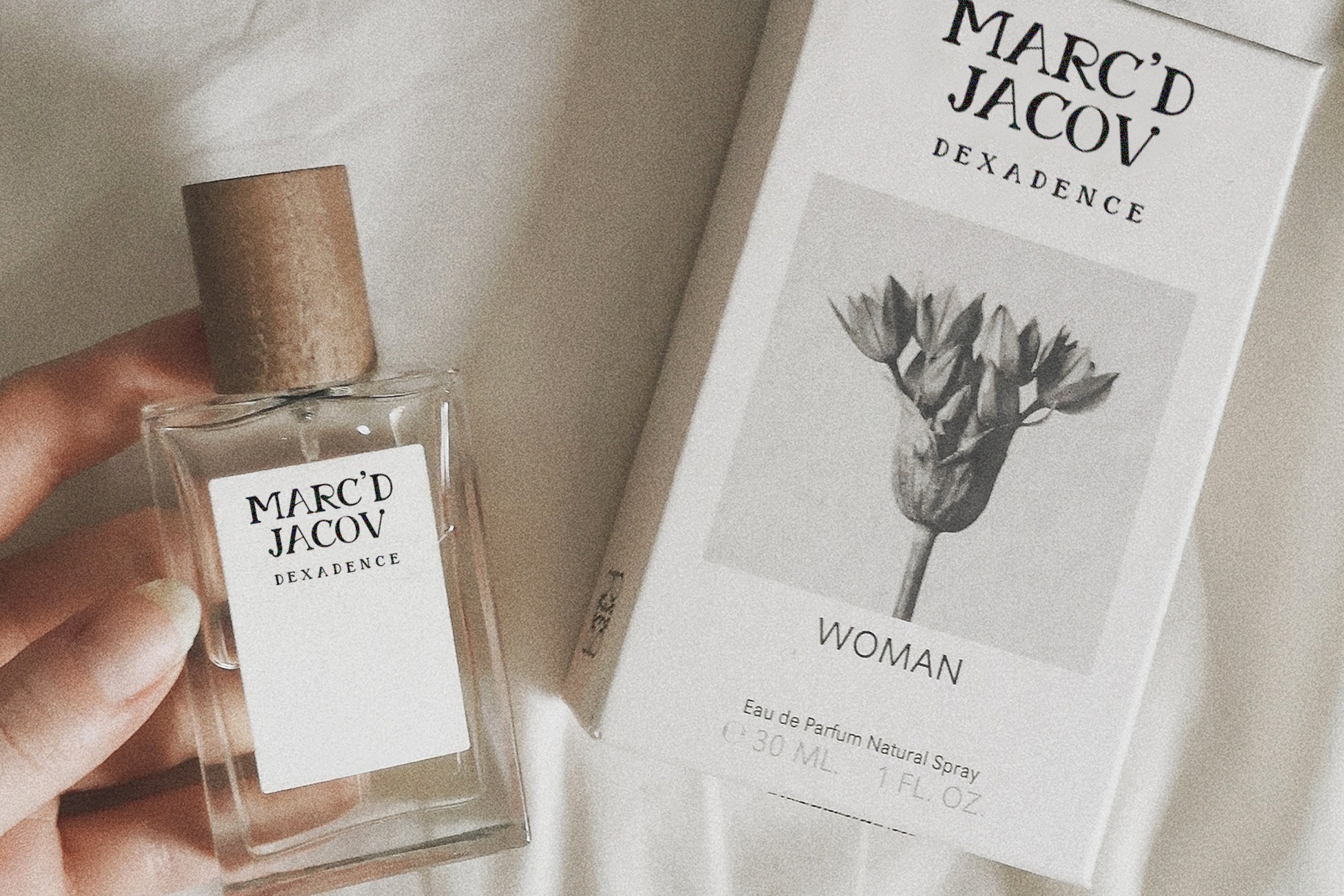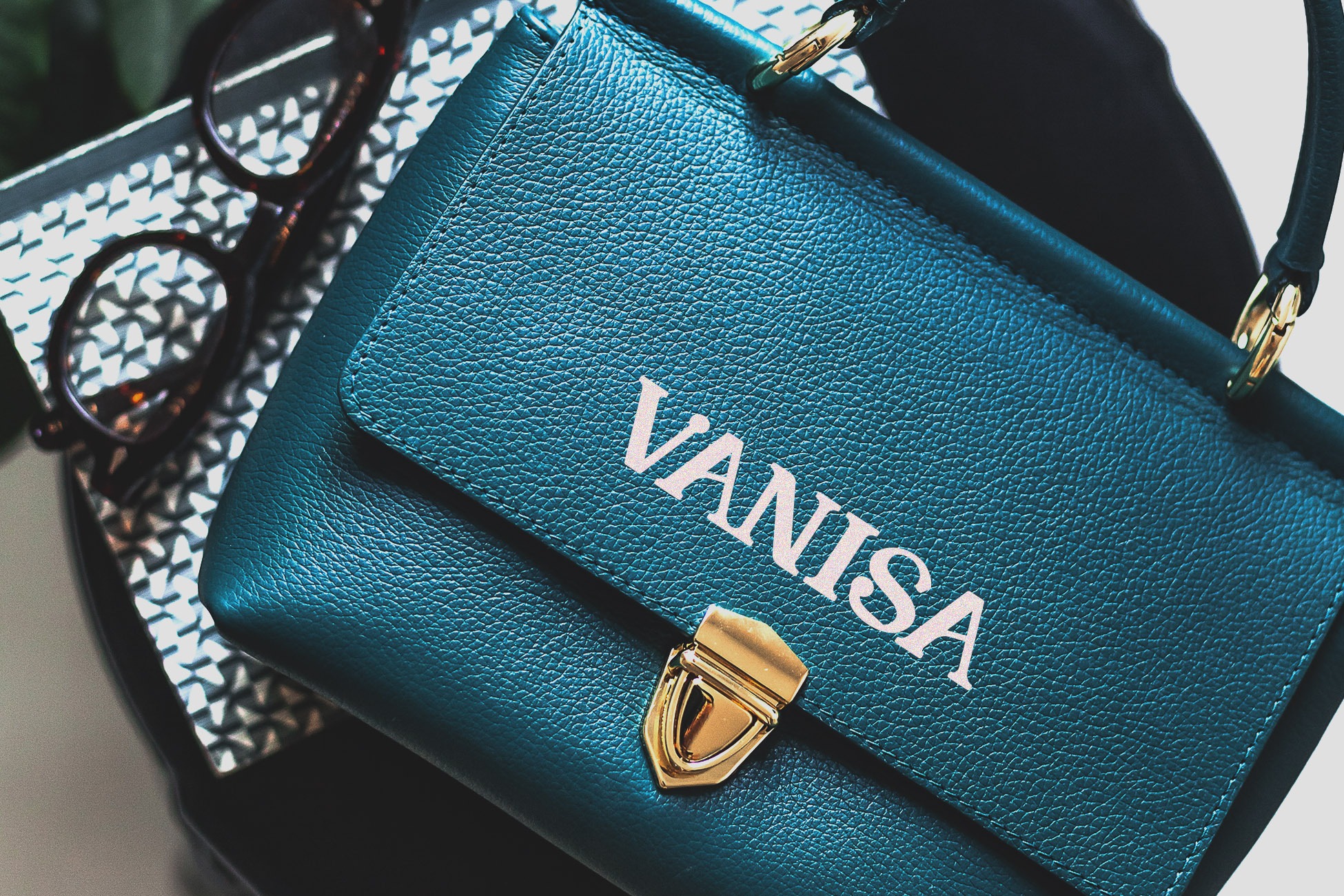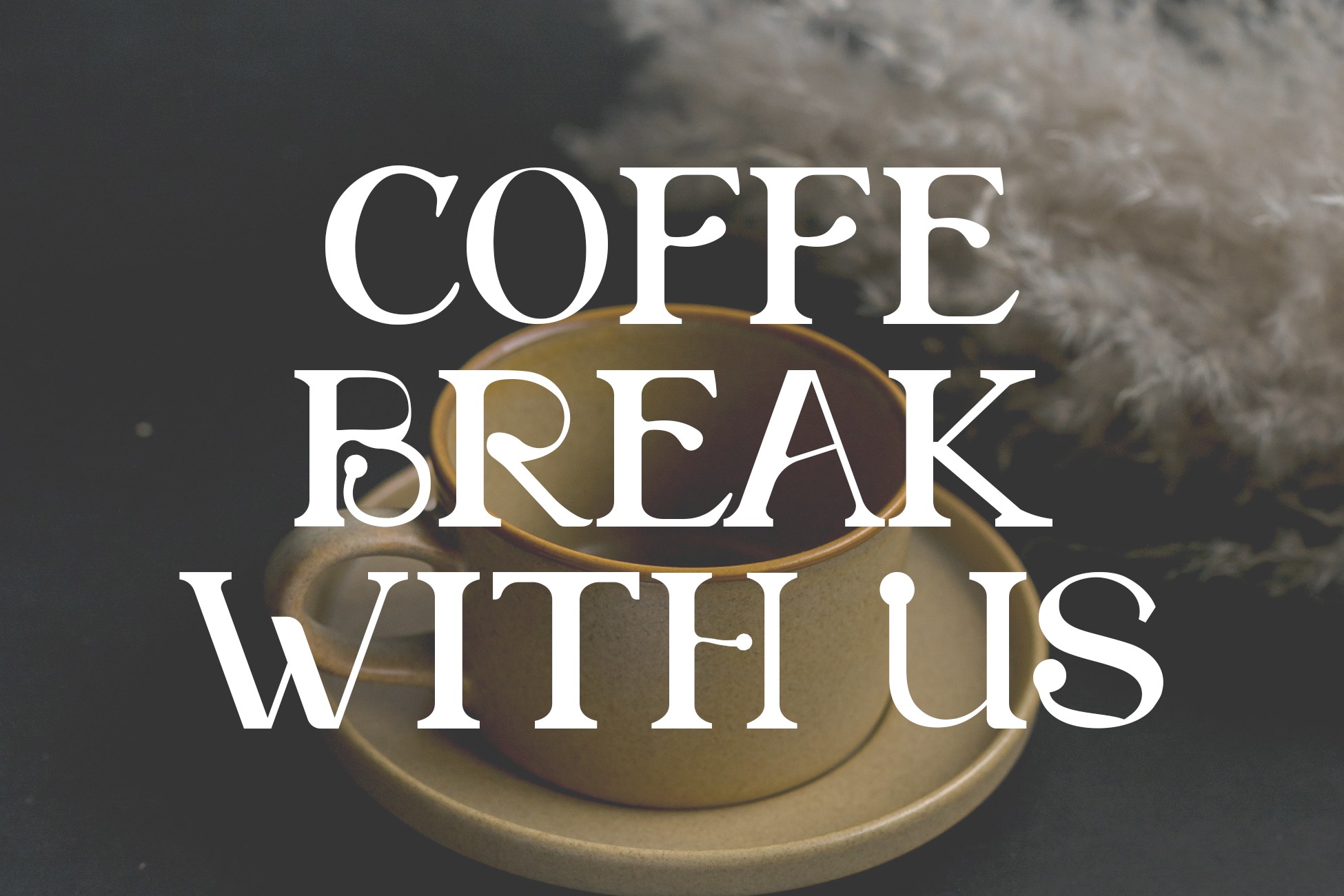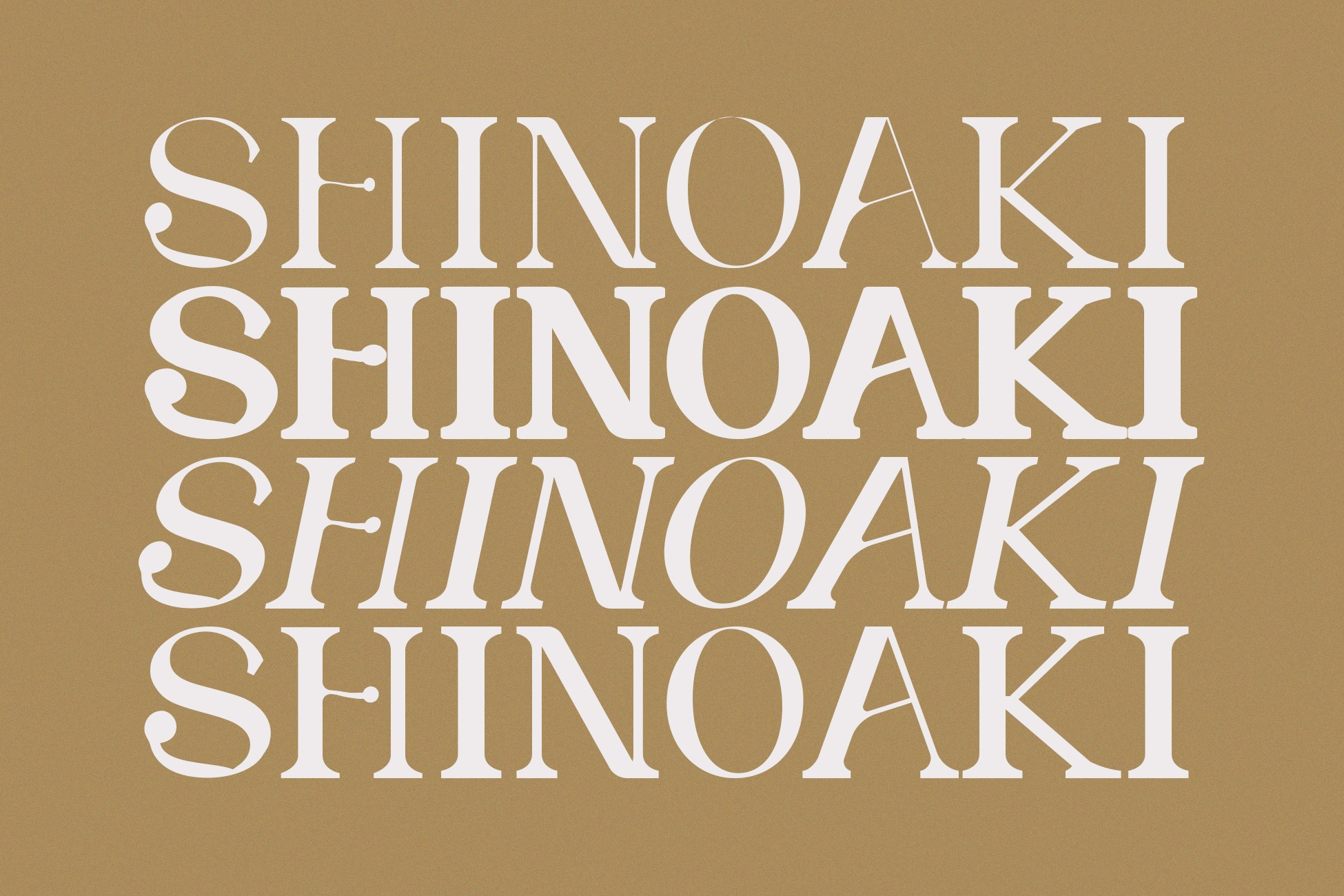
SHINOAKI Serif Font
It’s a trendy font that’s both retro and contemporary, is now available. Its thick curves give it a 70s groovy vibe, while the serifs return it to tradition. It has separate lower and uppercase letters, as well as numbers, punctuation, and multilingual letters. The Ligature fonts will come in handy for anything your imagination can dream up!